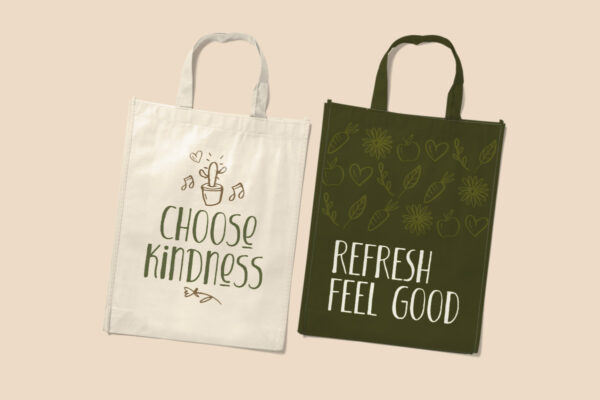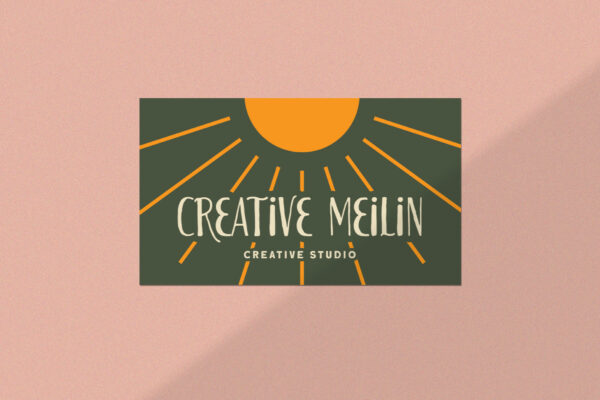
Looking for a font that feels both cozy and stylish? Look no further than Comfy Cozies. This organic sans serif font has a skinny form that gives it a light and airy feel, while the regular and slanted styles offer versatility and creative potential. Whether you’re designing for a playful brand or a casual event, this font will add a touch of warmth and charm to your work. This font perfectly made to be applied especially in logo, and the other various formal forms such as invitations, labels, logos, magazines, books, greeting / wedding cards, packaging, fashion, make up, stationery, novels, labels or any type of advertising purpose.
Features:
• Uppercase & lowercase
• Numbers and punctuation
• Ligatures & Alternates
• Multilingual
Comfy Cozies – A Skinny Organic Sans Serif